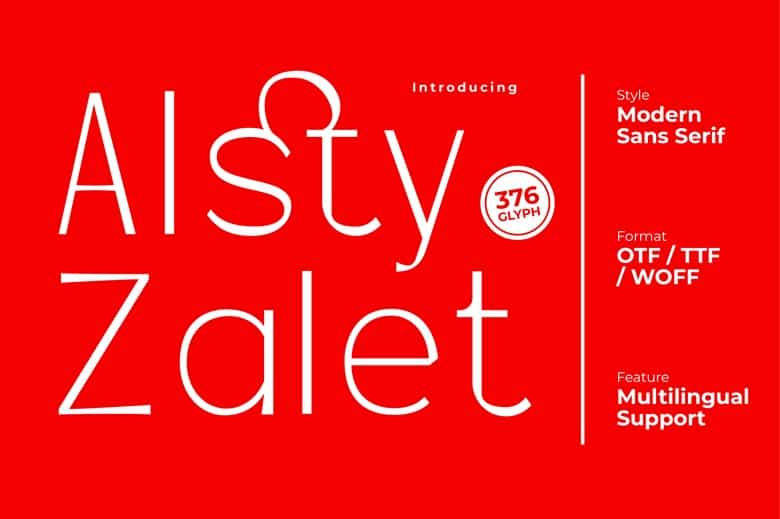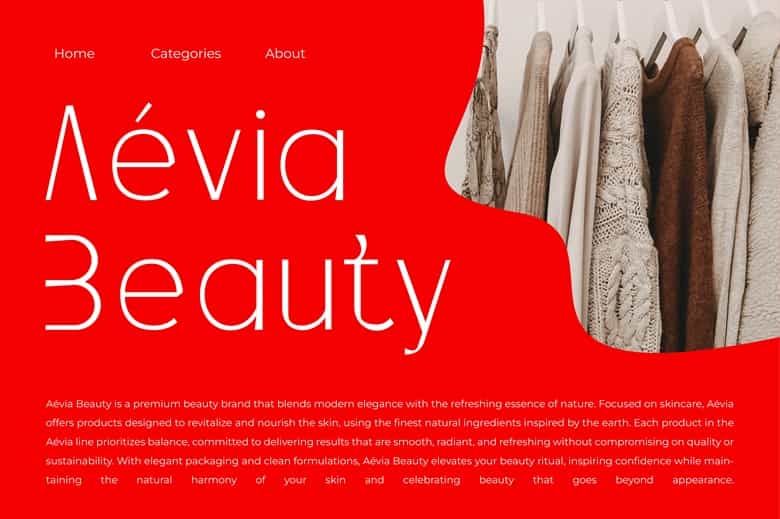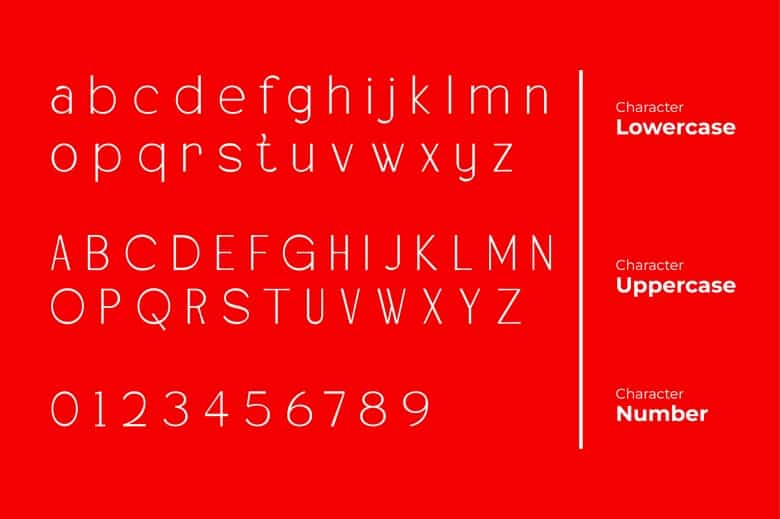
Alsty Zalet is a modern and clean sans serif font, with soft geometric feel. It is made to be readable and elegant which provides a modern aesthetic with faintness on personality suitable to branding. editorial layouts. and minimal design systems. Including harmonious proportions, harmonic terminations, and carefully selected stylistic alternates and ligatures.